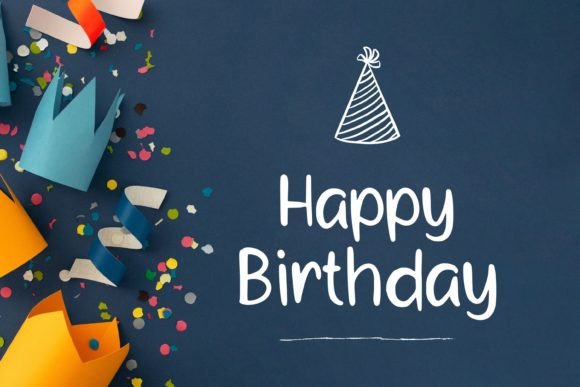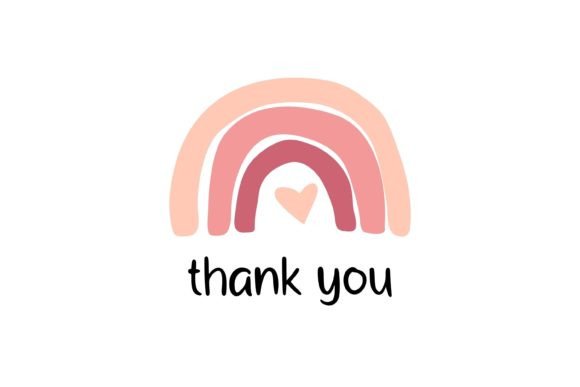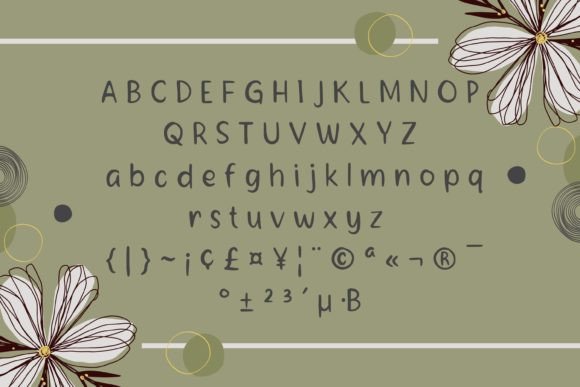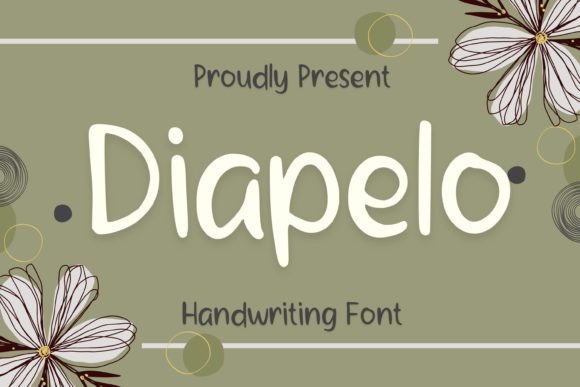
Introduction to Diapelo Font
Diapelo is a friendly and casual handwritten font.
Why Choose Diapelo Font?
Diapelo Font offers exceptional quality and versatility, making it a valuable addition to your design toolkit. Whether you’re creating for personal projects or commercial use, Diapelo Font delivers professional results.